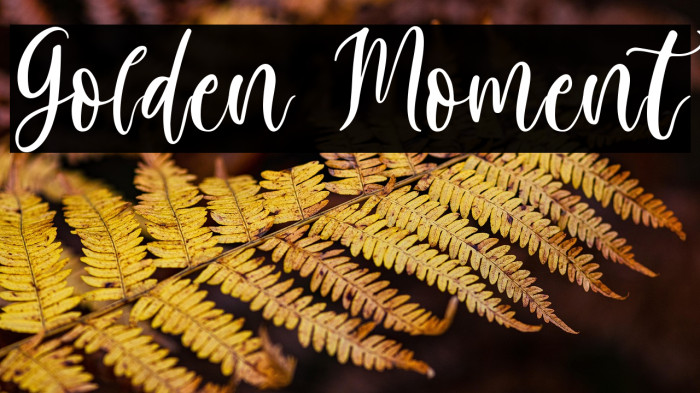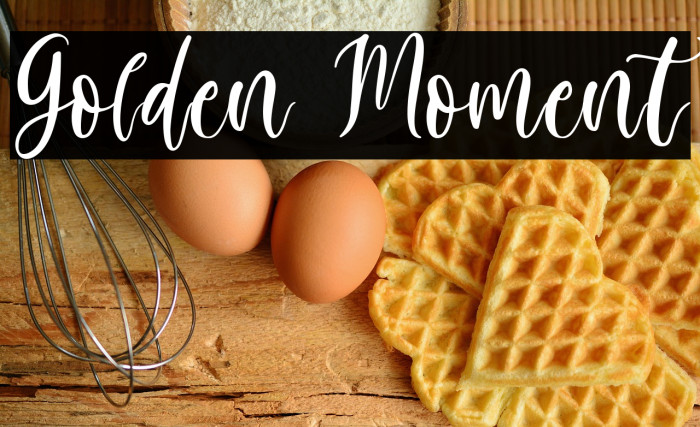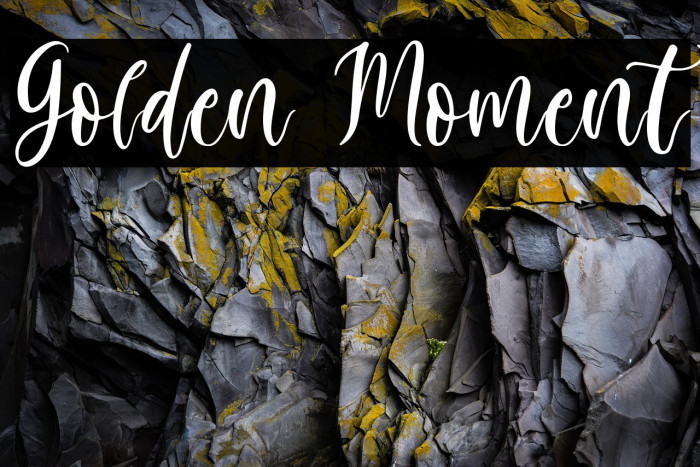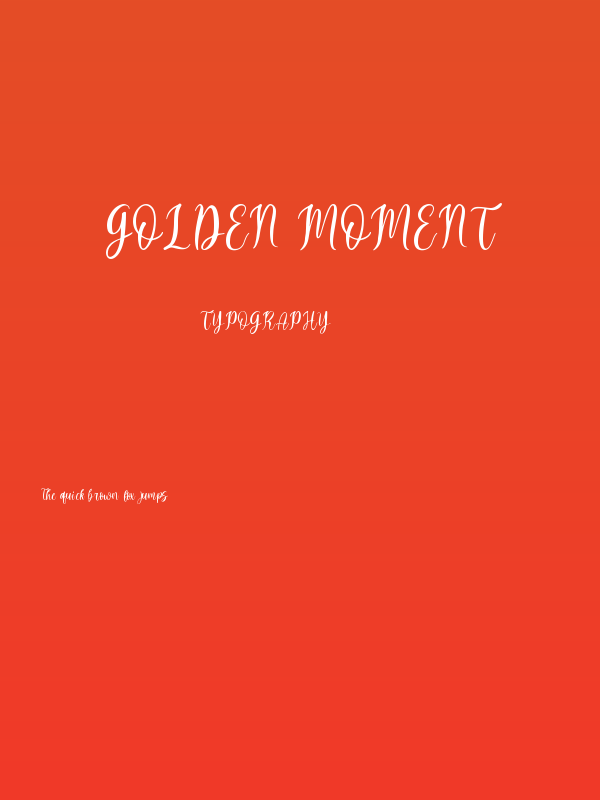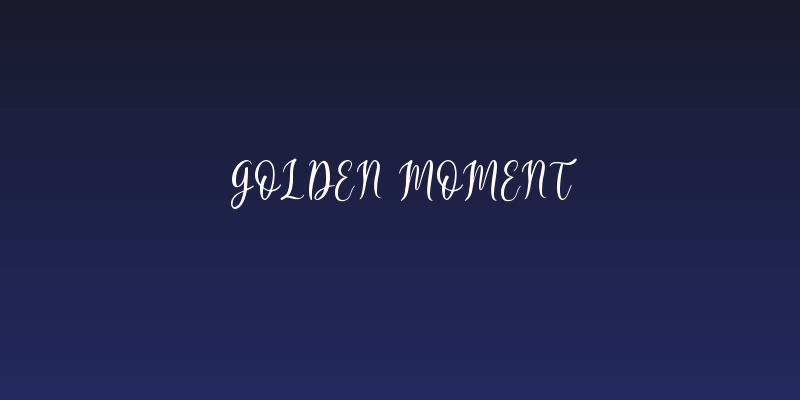
Golden Moment Font
Golden Moment Description
This elegant script font features flowing, cursive letters with a modern touch. The uppercase characters are stylishly elongated with graceful curves, while the lowercase letters maintain a consistent, fluid motion. The numerals are designed to complement the letters, offering a cohesive look. Special characters are crafted with the same attention to detail, enhancing the font's versatility. The overall design is both sophisticated and approachable, making it suitable for a variety of creative projects.
| Proposed Projects | Ideal for wedding invitations, branding, greeting cards, and elegant packaging designs. |